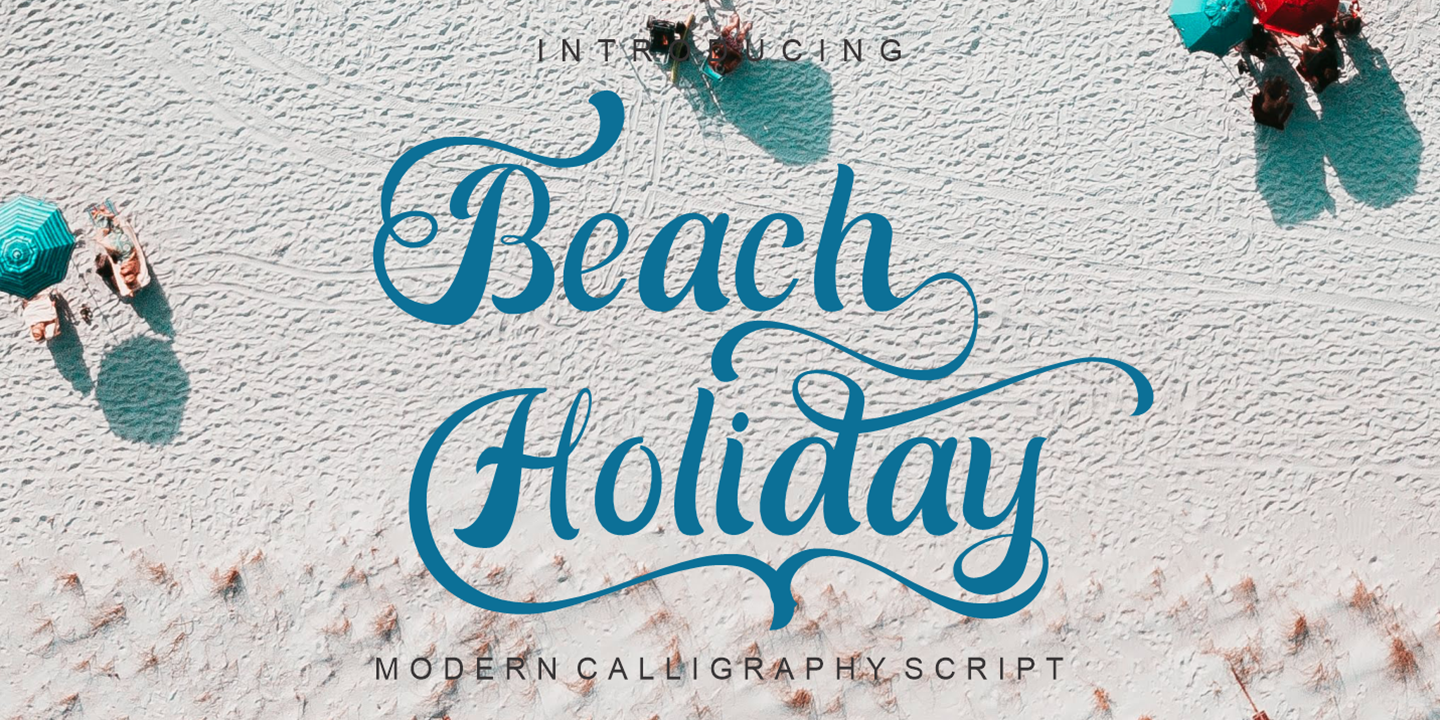
This versatile typeface shines in various design applications including summer event posters, vacation resort branding, tropical-themed invitations, beachwear logos, surf shop signage, coastal restaurant menus, and travel agency advertisements. The Beach Holiday Font captures the essence of seaside relaxation with its flowing curves and playful character forms that evoke memories of sandy shores and ocean waves.
What makes this font truly exciting is its ability to instantly transport viewers to a tropical paradise through typography alone. The carefully crafted letterforms feature subtle wave-like elements and sun-kissed warmth that make any design feel like a vacation. Its unique personality combines casual elegance with beach-inspired whimsy, creating an irresistible visual appeal that stands out in both digital and print applications.
The Beach Holiday Font family includes multiple weights and styles to suit diverse design needs: Regular, Bold, Light, and Italic variations. Each family member maintains the distinctive coastal character while offering flexibility for headlines, body text, and decorative elements. This comprehensive font family ensures consistency across your entire project while providing enough variety to create visual hierarchy.